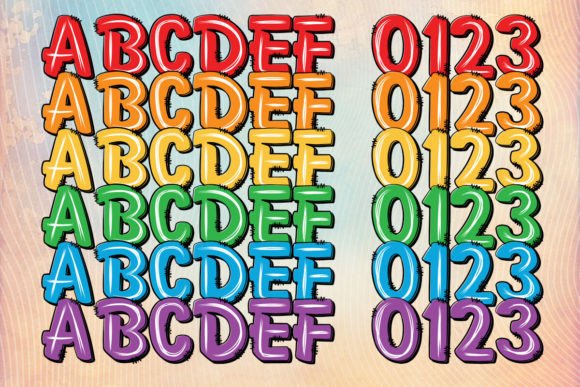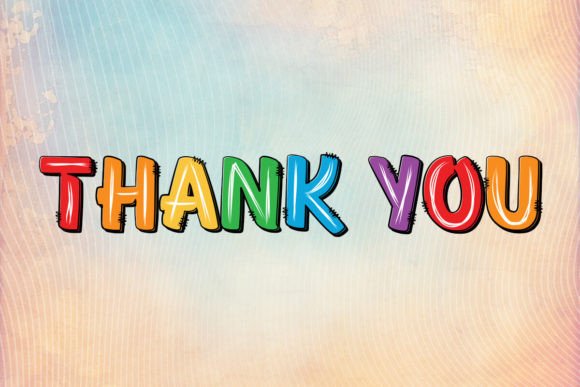
Hello School Font
Introducing “Hello School” font, a delightful font inspired by everything School. With its vivacious spirit, it impersonates the joy of a first day back at school, bringing that out through every character inscribed. Carefully designed with an educator’s precision, it makes a perfect choice for any school-related design, embodying the love for learning. This striking typeface comes in an assorted mix of six vibrant colors, making it a creative playground for any design enthusiast. While maintaining its distinctive style, “Hello School” font confidently stands out as an amazingly versatile font, perfect for any school-themed project. Embrace the spirit of academia with this standout typeface!